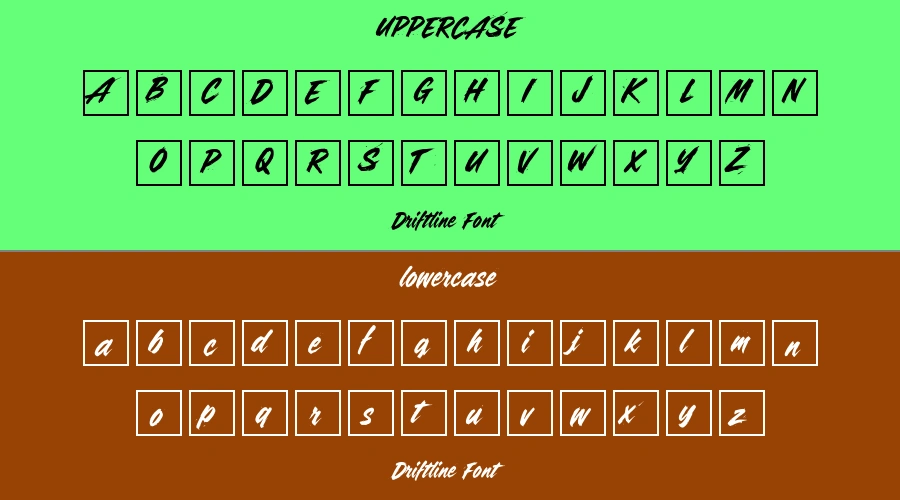
About Driftline Font
When typographic excellence matters most, Driftline Font delivers through its thoughtful blend of sharp edges and functionality. Specially crafted for corporate communications, it offers the versatility and market relevance required for sophisticated design work. Every detail serves a purpose.
The character set showcases thoughtful details like systematic design alongside functional titling alternates. This proves especially valuable in product names, where language switching directly influences results. Particular attention was paid to tail length and historical reference during development.